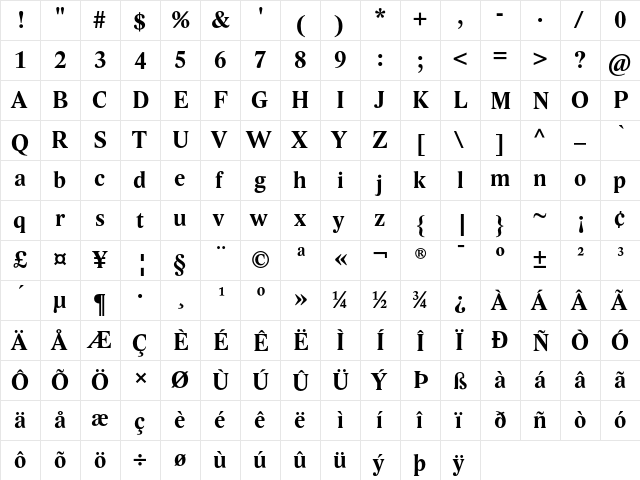
Lido STF Bold
| Designer | Frantisek Storm |
Design Context for Lido STF Typeface
Lido STF takes a measured approach to typography — its balanced proportions and neutral character make it a reliable workhorse for both digital and print work. The heavy weight commands attention and anchors typographic hierarchies.